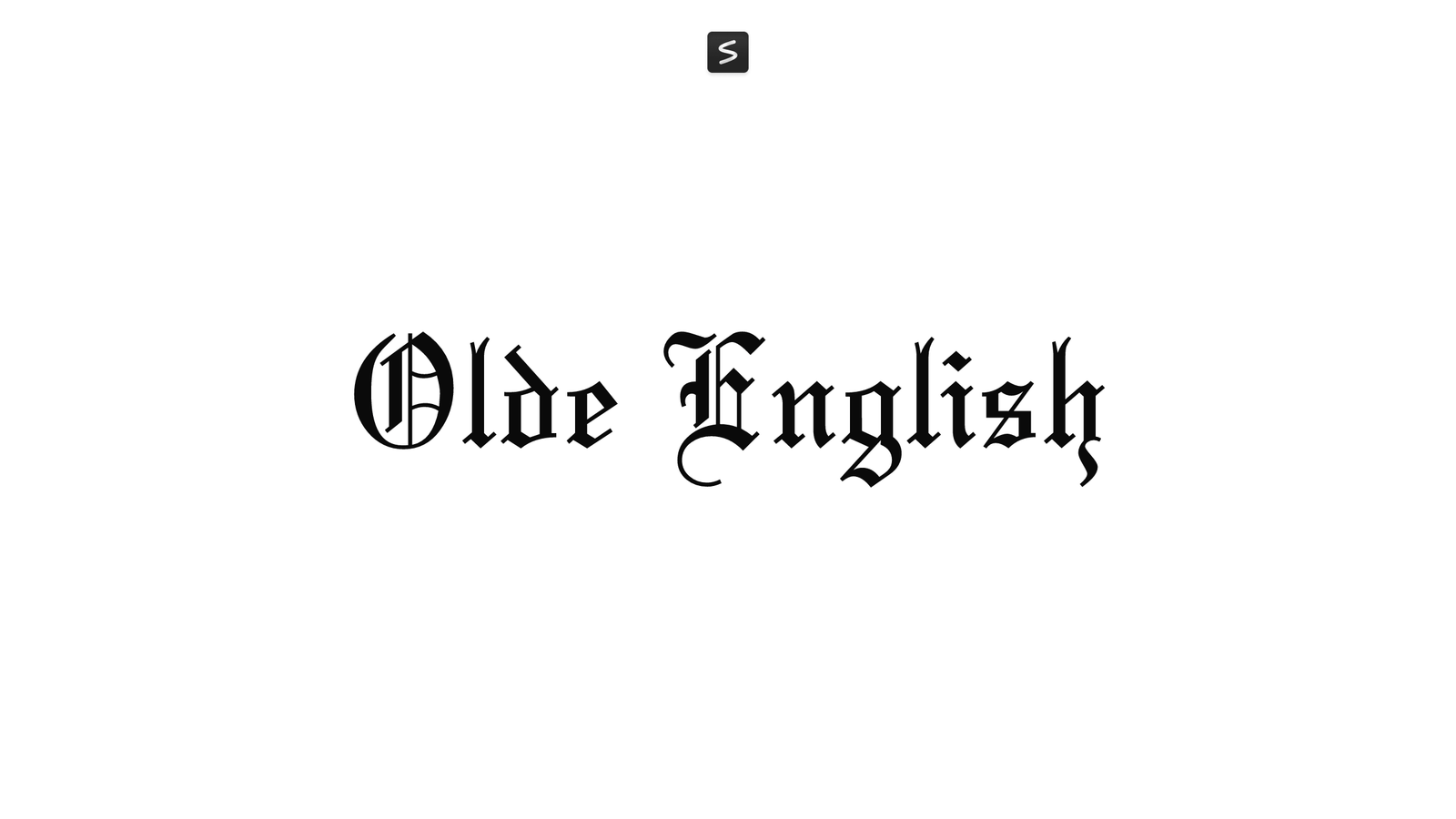
Olde English is a gothic font designed by Dieter Steffmann that draws inspiration from medieval manuscripts and blackletter calligraphy. Its ornate letterforms feature heavy strokes, elaborate serifs, and a distinctly Old English or Middle English character that feels pulled straight from illuminated manuscripts or ancient documents.
The font’s dense, interlocking letterforms give it an authentic period quality, making it recognizable at a glance despite its complexity. Characters are embellished with decorative flourishes and sharp terminals that reinforce its historical aesthetic, though readability remains intact when used thoughtfully.
Olde English works well for book covers, fantasy game interfaces, historical posters, invitations, or any project needing a sense of antiquity and formal authority. It’s a solid choice when you want text that feels genuinely rooted in the past rather than merely styled to suggest it.